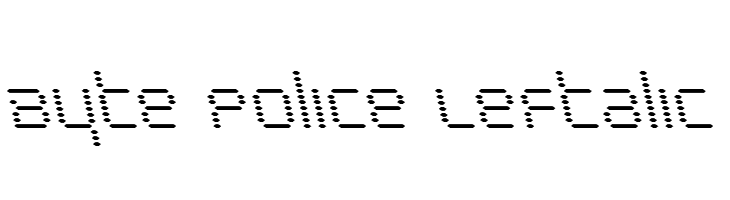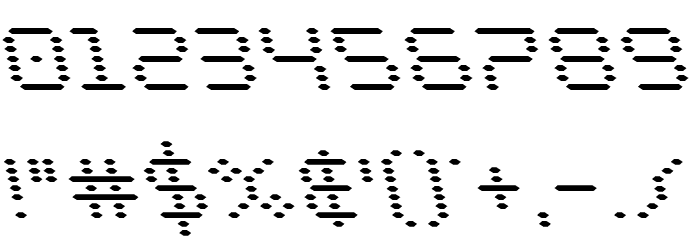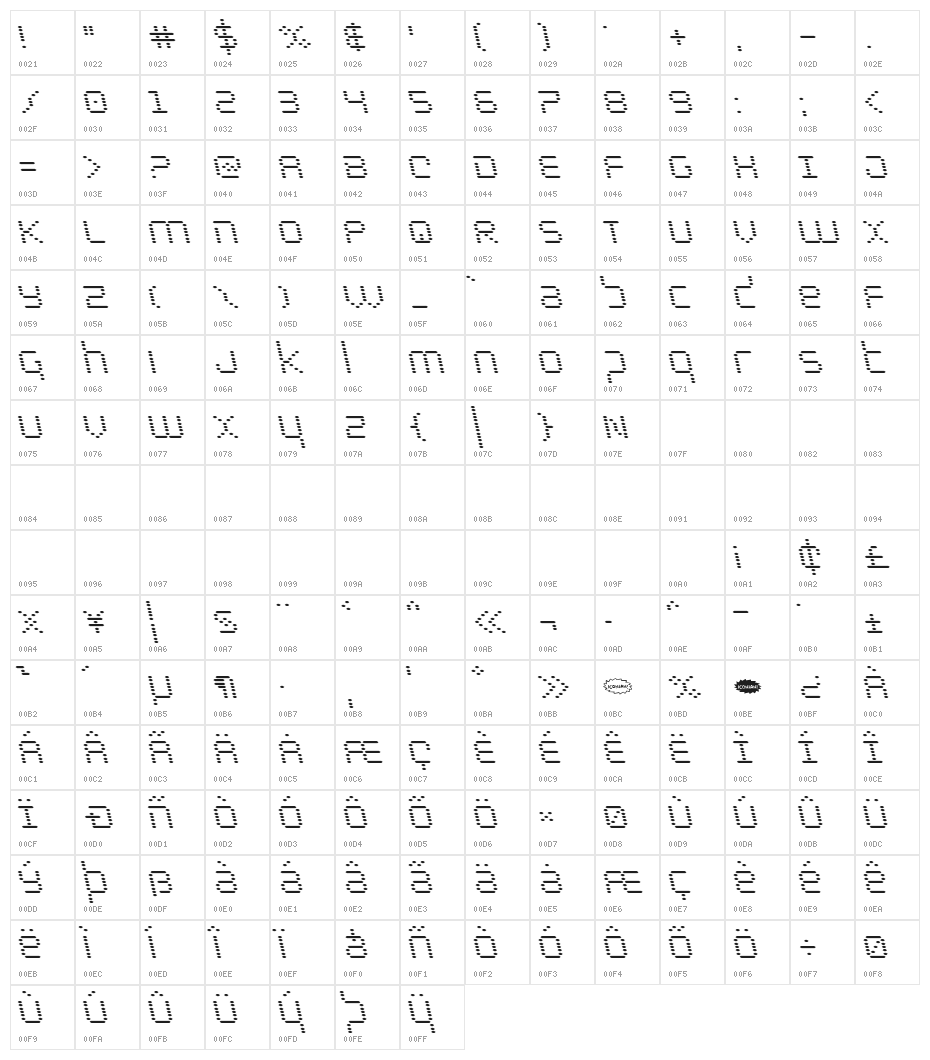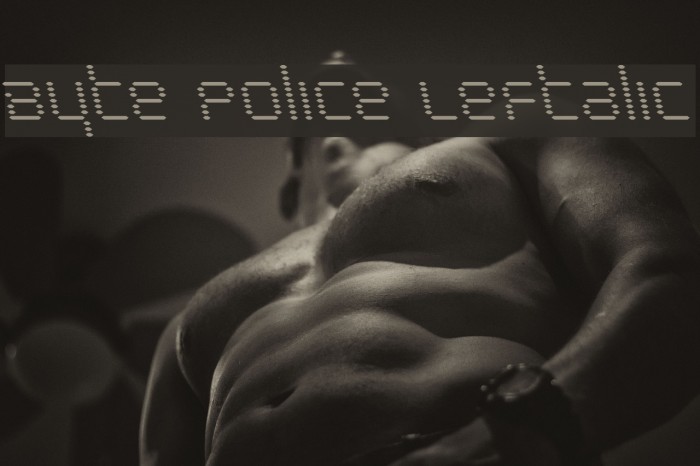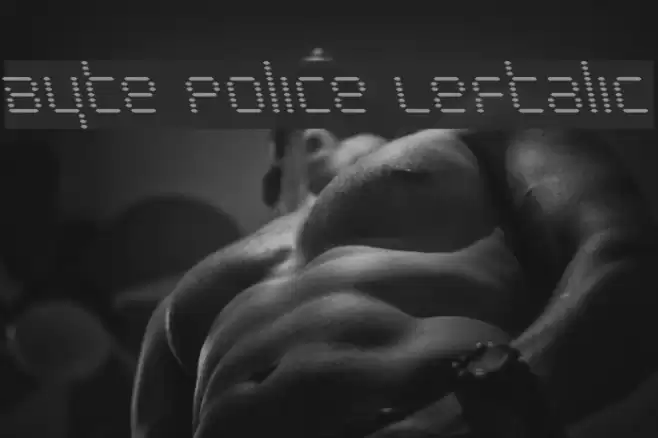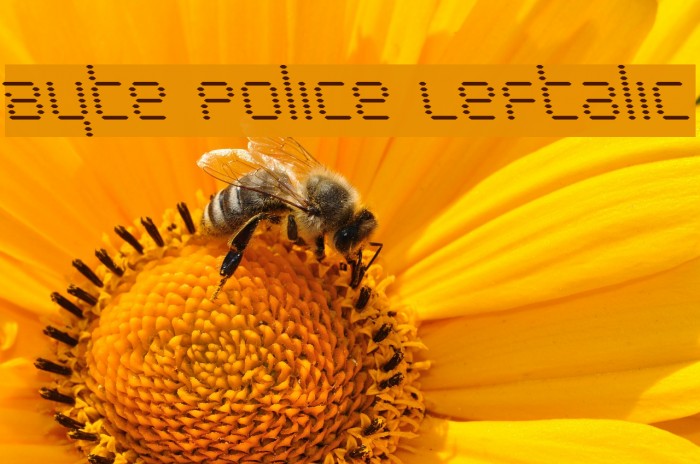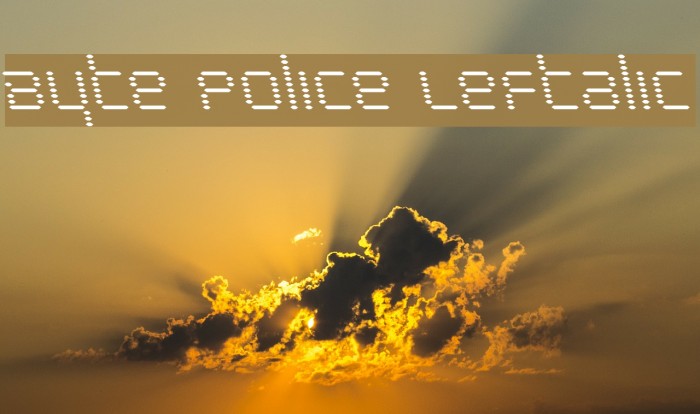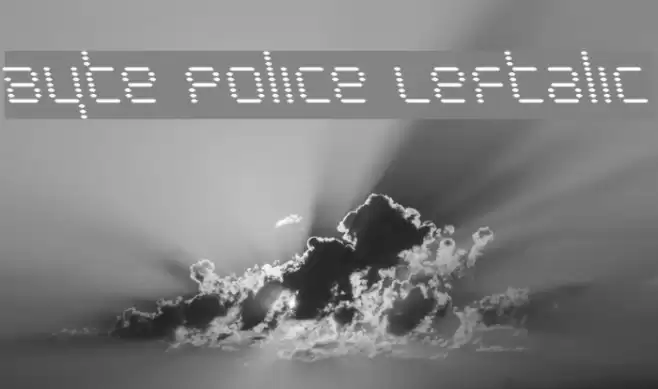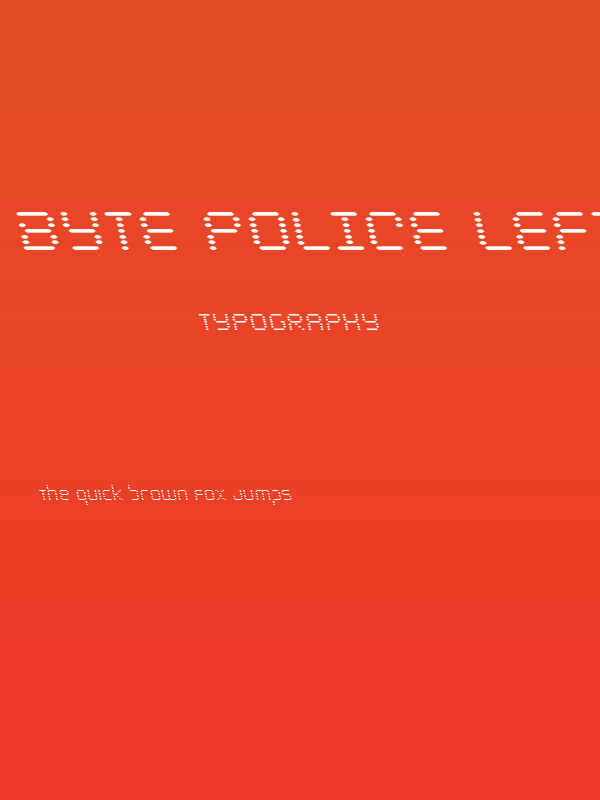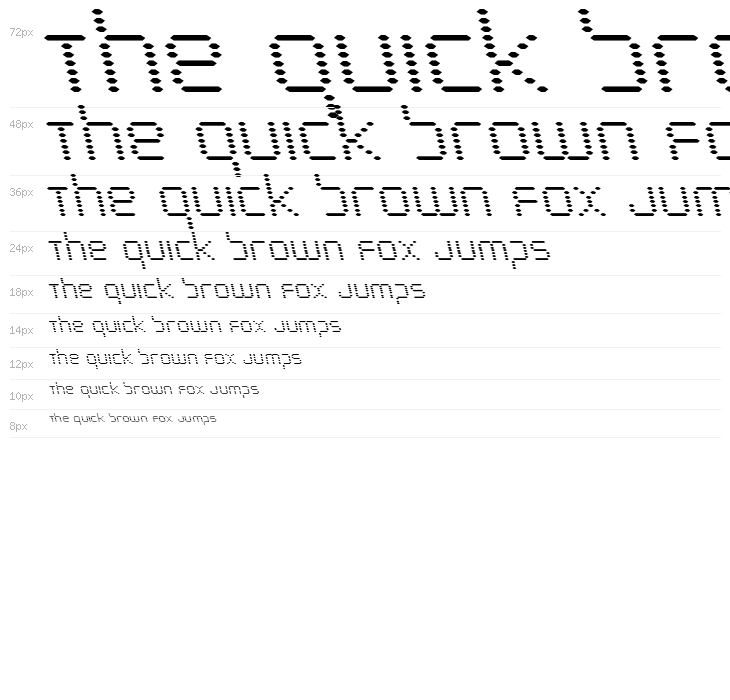
Byte Police Leftalic Font
Byte Police Leftalic Description
This font features a unique dot-matrix style, reminiscent of retro digital displays and early computer graphics. Each character is constructed from a series of evenly spaced dots, creating a pixelated effect that is both nostalgic and futuristic. The uppercase and lowercase letters maintain a consistent design, with rounded corners and a uniform dot size, giving the font a cohesive and structured appearance. Numbers and special characters follow the same pattern, ensuring readability and visual harmony across all elements. This font's distinct style makes it ideal for projects that require a tech-inspired or digital aesthetic.
| Overall Style | Retro, Futuristic |
| Proposed Projects | Ideal for digital art, retro-themed designs, tech branding, and video game graphics. |